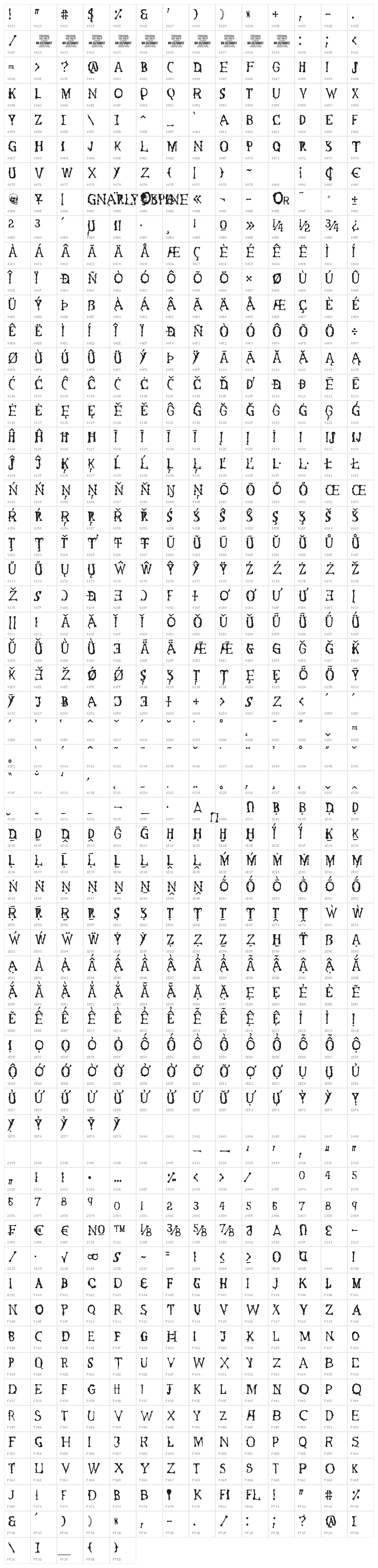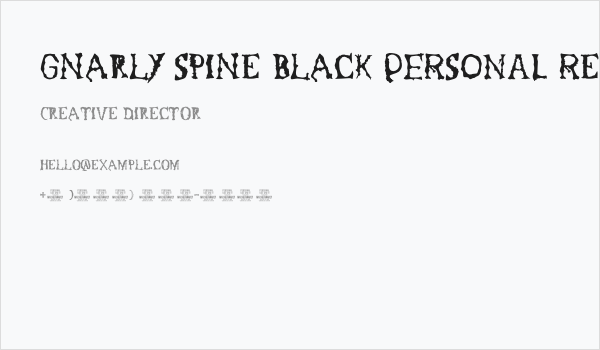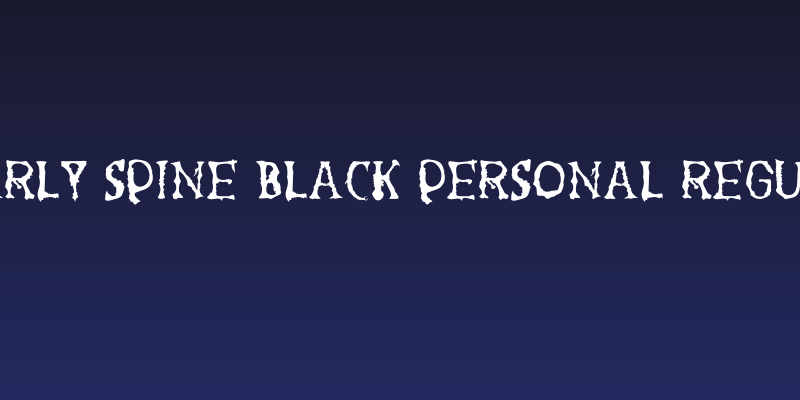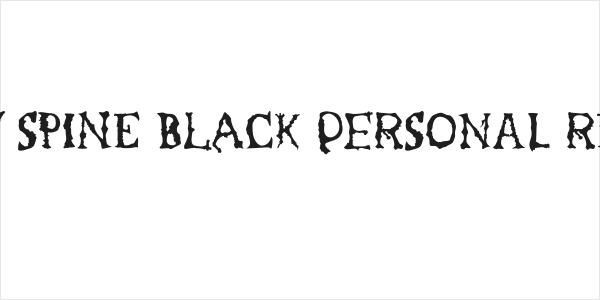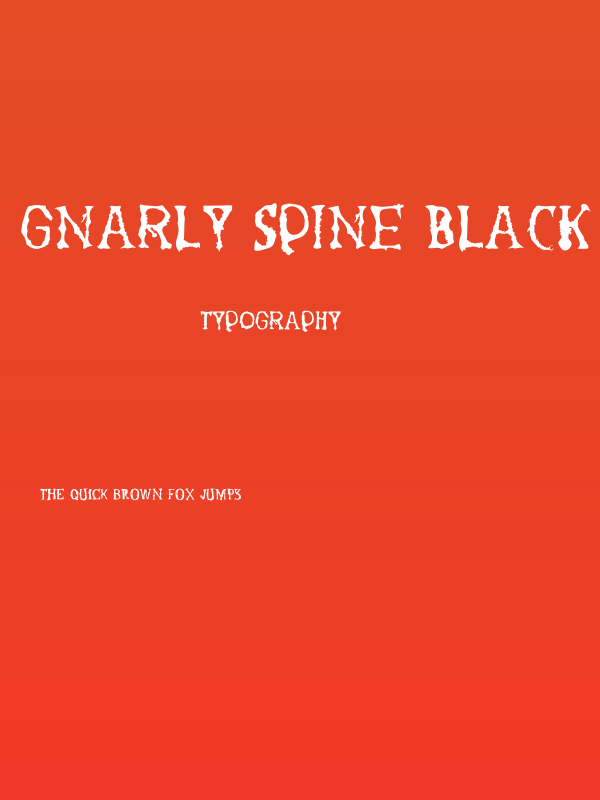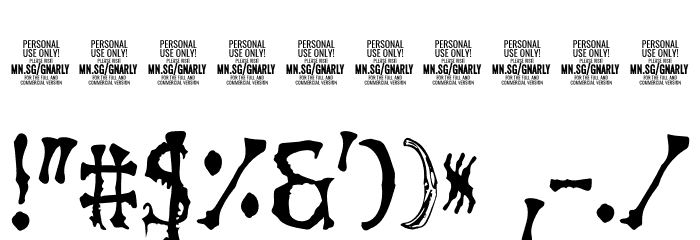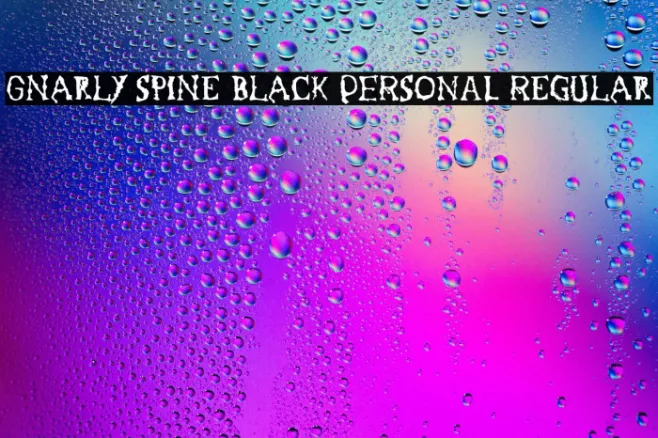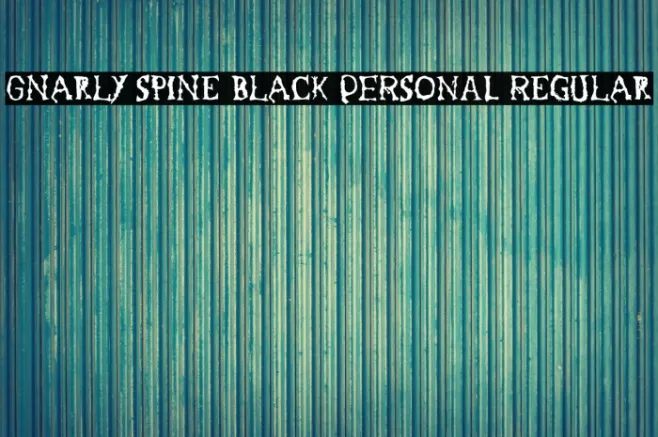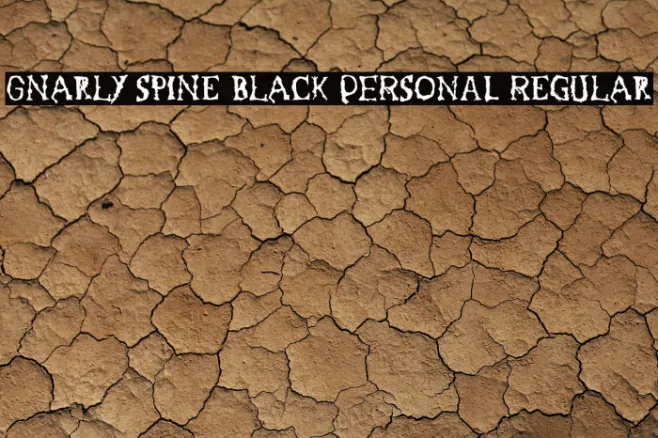
Gnarly Spine Black PERSONAL Regular Font
Gnarly Spine Black PERSONAL Regular Description
This font features a highly decorative and edgy style, characterized by its jagged and irregular edges that resemble sharp spines or thorns. The letters have a bold presence with a unique, distressed texture that gives them a rugged and rebellious appearance. The uppercase and lowercase letters maintain this consistent theme, creating a cohesive look that is both striking and memorable. The special characters follow the same design, adding to the font's overall impact. This font is ideal for projects that require a bold statement or a touch of the unconventional.